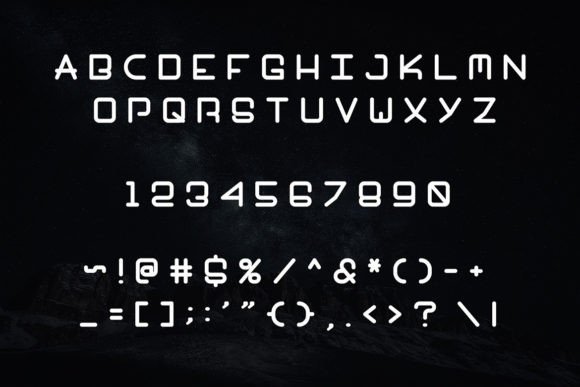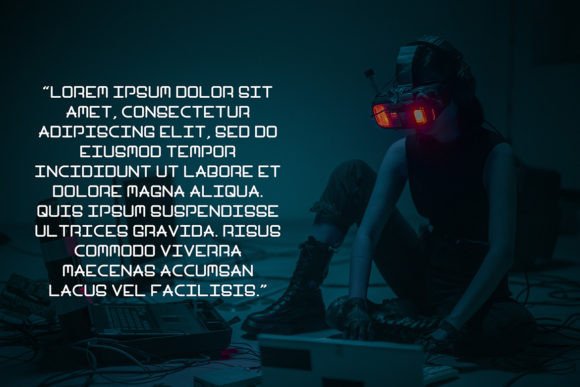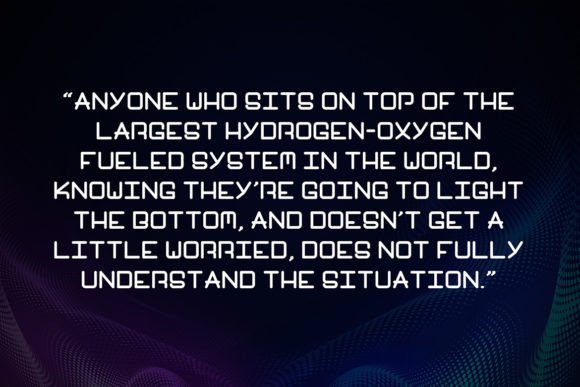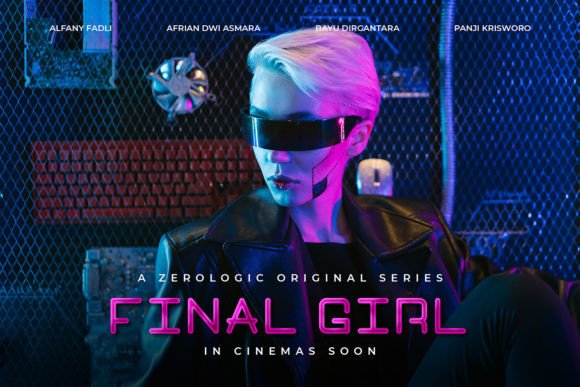
Introduction to Modesto Button Font
As a designer, there’s nothing quite like the thrill of bringing a creative project to life. The blank canvas, the blank slate, the endless possibilities – it’s a feeling that never gets old. But let’s be real, sometimes the real challenge isn’t the design itself, but finding the perfect font to bring it all together. That’s where the Modesto Button Font comes in.
This modern font is a game-changer for designers looking to add a touch of sophistication and style to their work. With its strong and sharp lines, the Modesto Button Font is perfect for titles, typography, posters, magazines, and more. And the best part? It’s a high-quality design resource that’s available for free download, making it a valuable addition to any designer’s toolkit.
Whether you’re working on a design project that requires a clean and modern aesthetic or just need a reliable font to fall back on, the Modesto Button Font is a transparent background that will elevate your work to the next level. So why wait? Download the Modesto Button Font today and take your designs to new heights.
Key Features of Modesto Button Font
- High-quality design resource with a modern and creative style suitable for various projects, including digital products and websites.
- Comes with a transparent background, allowing for easy customization and integration with different backgrounds.
- Features a unique and eye-catching design that can add a professional touch to any creative project.
- Designed to be scalable, ensuring high-quality display across various resolutions and devices.
Honest Review: Modesto Button Font
I recently stumbled upon the Modesto Button Font while searching for a free design resource to elevate my creative project. I was thrilled to find a high-quality font that’s perfect for creating eye-catching buttons and graphics.
What works well is that the Modesto Button Font is incredibly versatile and can be used for a variety of design applications. It’s perfect for digital and print projects, and its transparent background makes it easy to customize and combine with other design elements. ✨ The font also comes in a range of styles and sizes, making it easy to find the perfect fit for your design.
- Key Features:
- Customizable
However, I did notice that the font can be a bit limited in terms of its expressiveness. While it’s great for creating bold, attention-grabbing buttons, it may not be the best choice for more subtle or delicate designs. ⚠️ Additionally, the font can be a bit difficult to read at small sizes.
Overall, I’m really impressed with the Modesto Button Font. It’s a great addition to any designer’s toolkit, and I would highly recommend it for anyone looking for a high-quality, free design resource.
Using Modesto Button Font in PowerPoint/Word
Open PowerPoint or Word and select the font from the font dropdown menu. The Modesto Button Font is a great addition to any presentation or document, adding a touch of creativity and professionalism.
Tips for Getting the Most Out of Modesto Button Font
Experiment with different font sizes, colors, and styles to create unique design elements. Use the font’s transparent background feature to create visually appealing graphics. Combine the Modesto Button Font with other design elements to create a cohesive and high-quality design.
Common Use Cases for Modesto Button Font
The Modesto Button Font is ideal for creating buttons, icons, and other design elements for various projects, including websites, presentations, and documents. Use the font to add a touch of creativity and professionalism to your design work.
Q: Does the Modesto Button Font include a transparent background option?
Yes, the Modesto Button Font is designed with a transparent background, making it easy to integrate into various design elements and backgrounds. This feature allows for a seamless and professional-looking design, perfect for creating engaging buttons and other UI elements.